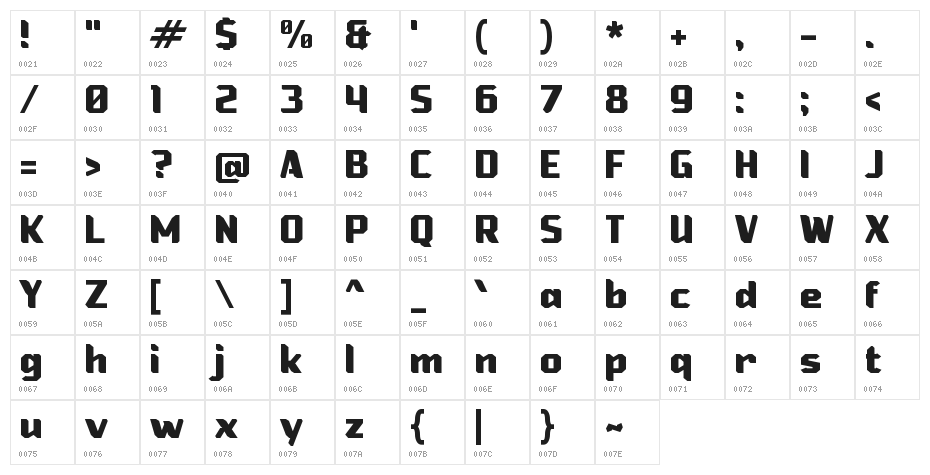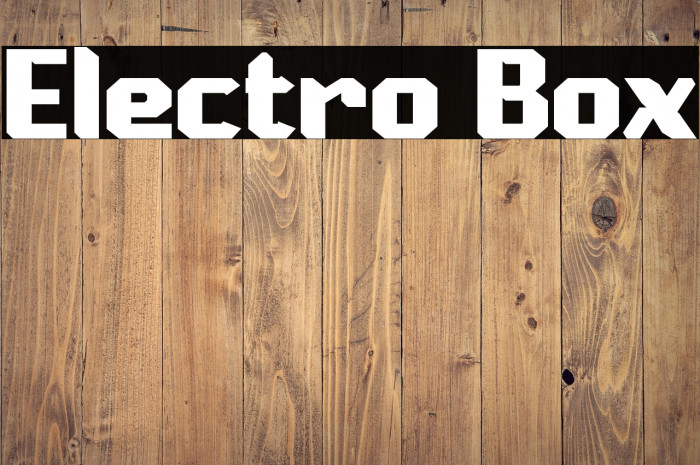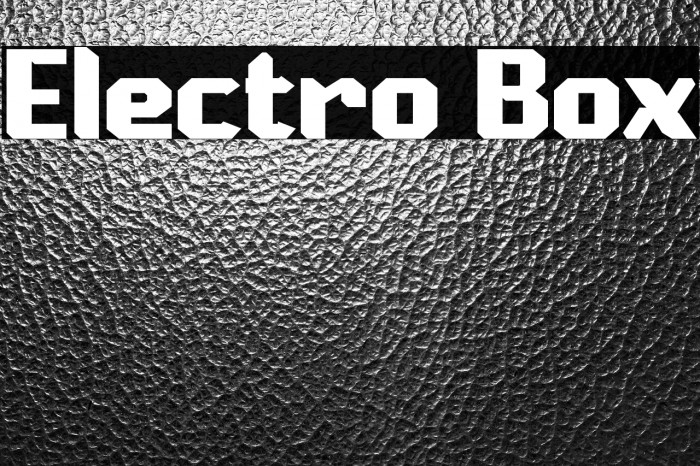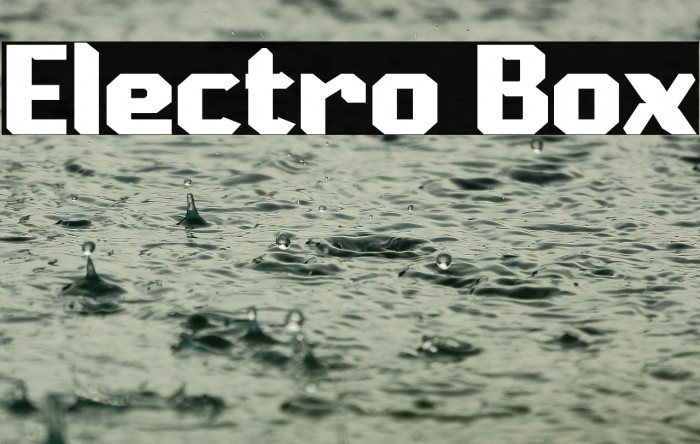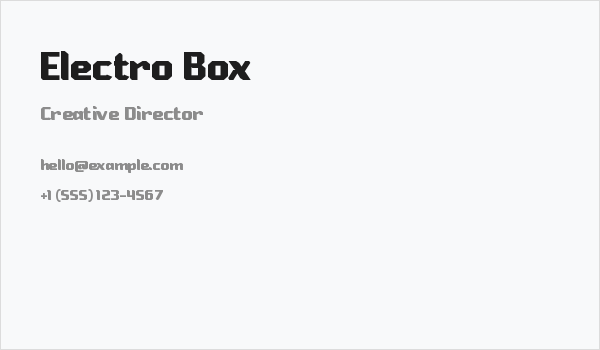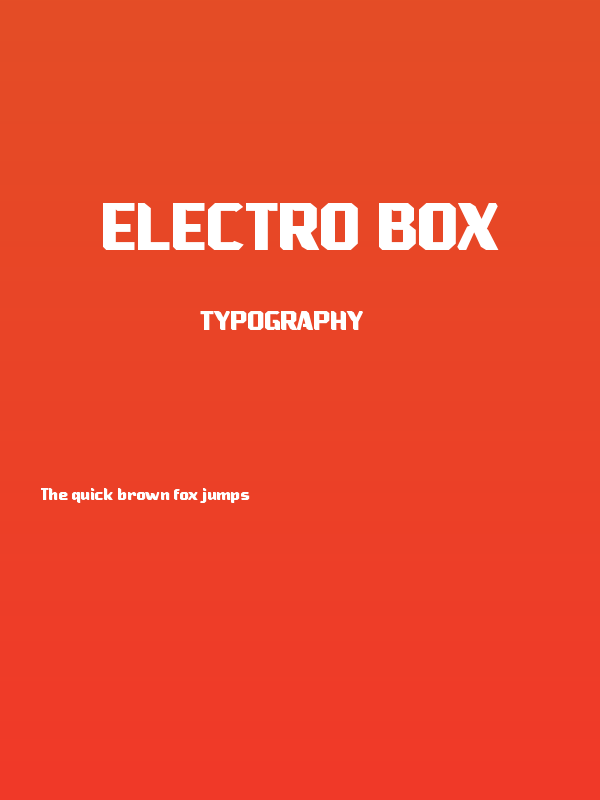
Electro Box Font
Electro Box Description
This font features a bold, geometric design with sharp angles and a futuristic aesthetic. The uppercase and lowercase letters maintain a consistent width, creating a uniform appearance. The characters are constructed with straight lines and angular cuts, giving them a mechanical and industrial feel. The numbers and special characters follow the same design principles, ensuring a cohesive look across all glyphs. The font's boldness and distinct style make it stand out, ideal for projects that require a modern and edgy touch.
| Proposed Projects | Ideal for technology branding, video game titles, sci-fi movie posters, and modern digital interfaces. |